Bubble Collection Font
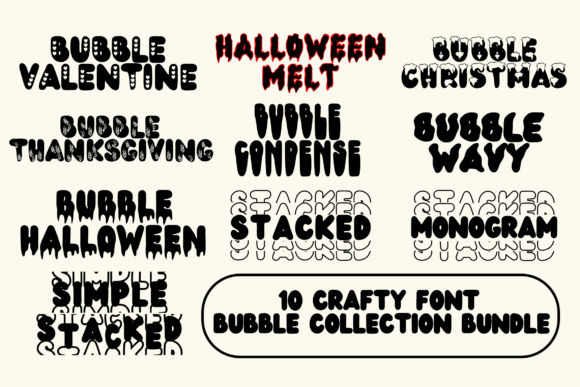
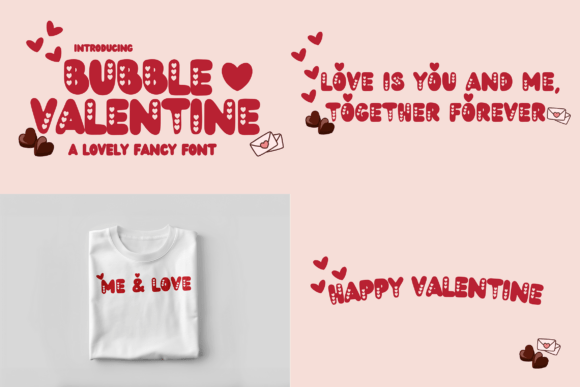
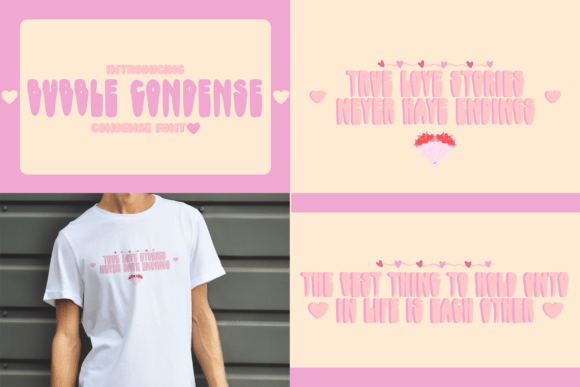
Introducing the Bubble Collection Mini Bundle, a fun and creative set of 10 crafty seasonal fonts designed to bring joy and personality to your projects! This collection features playful and unique display fonts inspired by different festive themes, making it perfect for holiday designs, greeting cards, posters, branding, and more.What’s Included?Halloween Melt – A spooky, drippy Halloween font Bubble Halloween – A fun and eerie font with a melted effect Bubble Thanksgiving – A warm and festive Thanksgiving-inspired font Bubble Christmas – A cute and bubbly Christmas display font Bubble Valentine – A romantic and playful font for Valentine’s Day Bubble Wavy – A wavy and fun display font for creative projects Bubble Stacked – A unique layered bubble-style font Bubble Stacked Monogram – A unique Hollowe Stacked bubble style font Simple Bubble Stacked – A simple Zig Zag Stacked Font Bubble Condese – A unique Condense Style Font Perfect for: 🎃 Halloween Invitations 🎄 Christmas & Holiday Cards 💌 Valentine’s Day Designs 🍂 Thanksgiving Menus & Posters 🎨 Creative Branding & Craft Projects